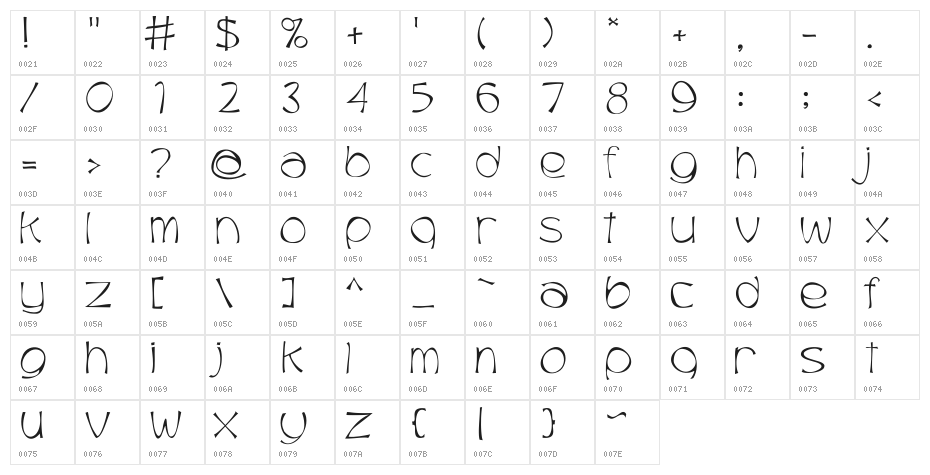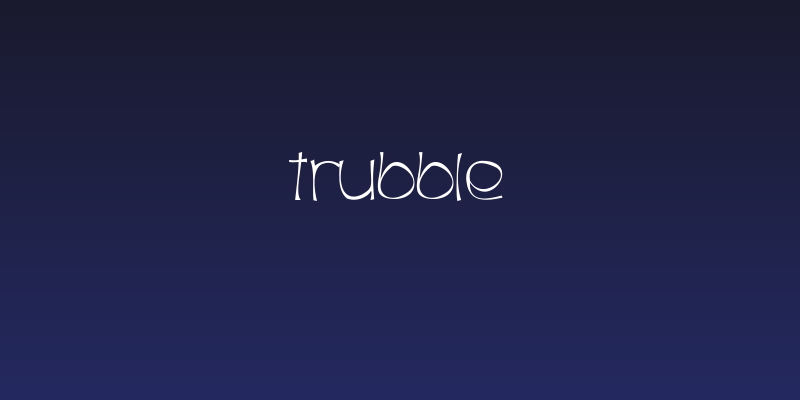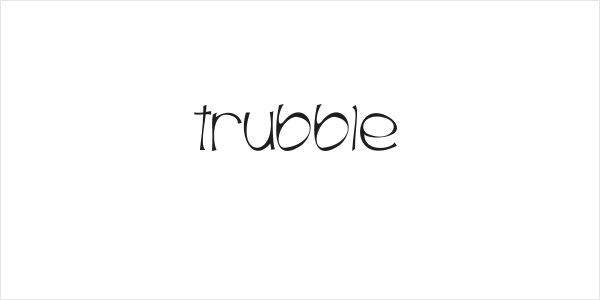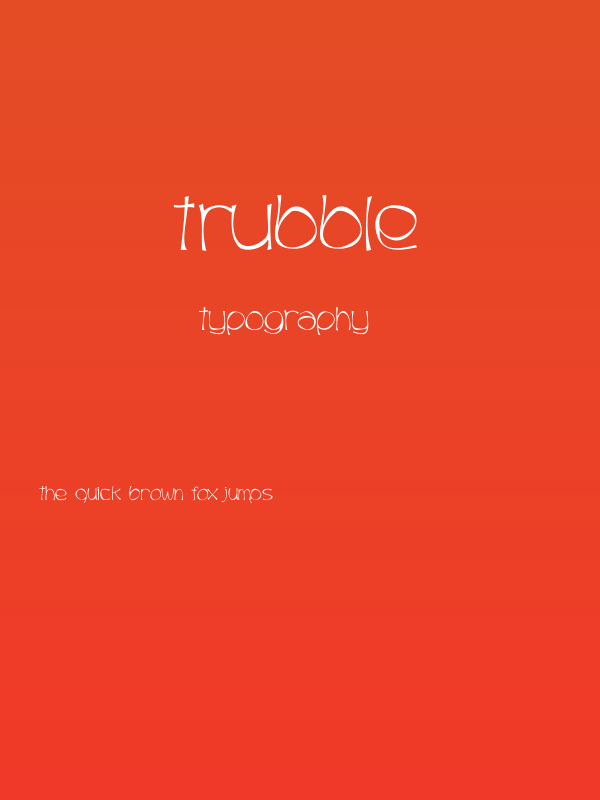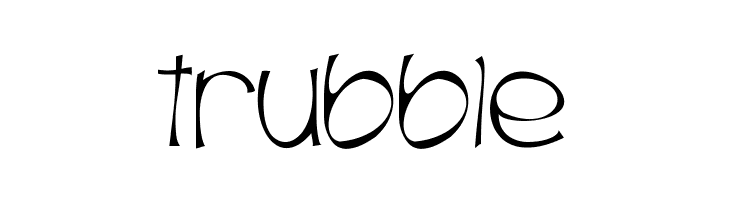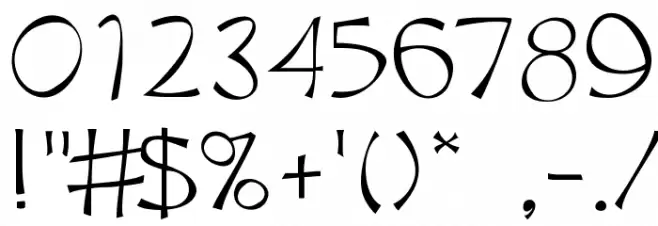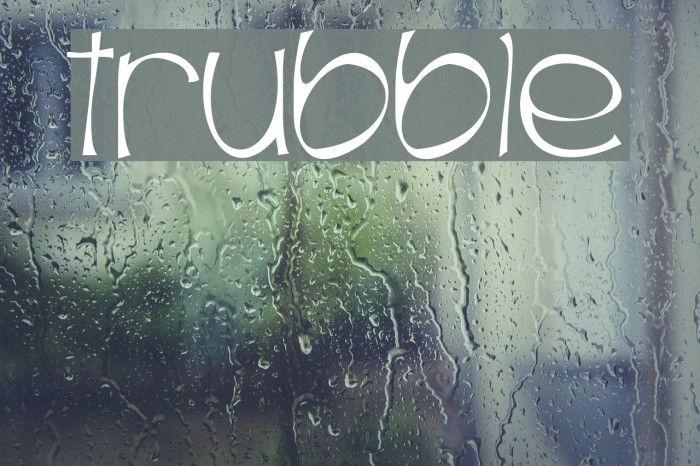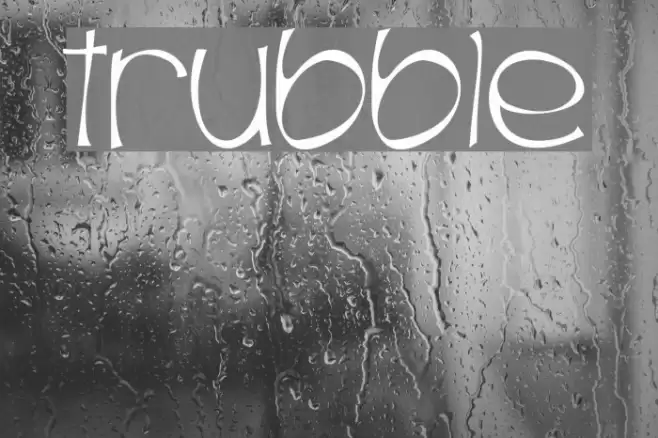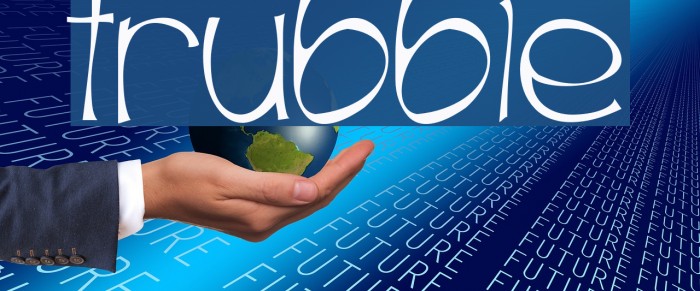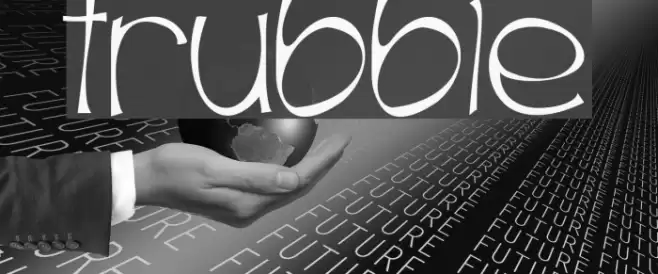
Trubble Font
Trubble Description
This font features a playful and whimsical design, characterized by its curvy and uneven strokes. The letters have a hand-drawn appearance, with varying line thickness that adds a dynamic and lively feel. The uppercase and lowercase letters maintain a consistent style, with exaggerated curves and loops that give the font a unique personality. The numbers and special characters follow the same playful aesthetic, making the font suitable for creative and informal projects. Its distinctive style makes it stand out, perfect for capturing attention in headlines or artistic designs.
| Use Case | Headlines, Logos, Creative designs |
| Proposed Projects | Ideal for children's books, playful branding, greeting cards, and creative posters. |